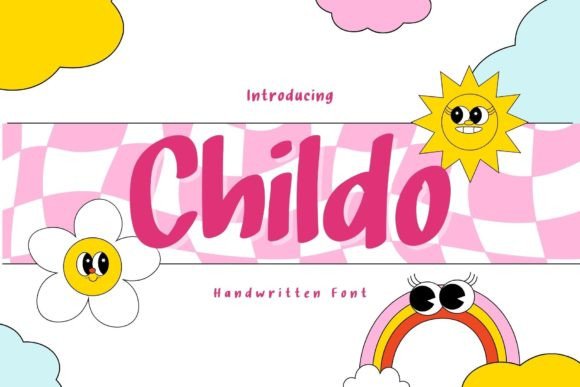
Brace yourself for the irresistible charm of Childo Font, the ultimate script font designed to capture hearts with its captivating strokes and playful personality. Step into the realm of creativity as you unlock a world of endless possibilities with Childo. Crafted with meticulous attention to detail, this enchanting font radiates authenticity and breathes life into your designs.
Experience the thrill of transforming ordinary words into extraordinary expressions. Blog posts, logos, branding, ads—there's no limit to what Childo can enhance with its irresistible charm. Watch as invitations, greeting cards, and planners come alive with Childo's whimsical touch, adding a layer of magic to every occasion.
Dive into the world of scrapbooking and indulge in the joy of capturing precious memories. Childo's allure will make your photo albums sparkle with personality, while decorations and accessories take on a new life of their own. Let Childo be your muse and unlock a treasure trove of creative wonders.
Embrace the beauty of Childo Font and let your imagination soar. Its delicate curves and flowing lines will captivate your audience, leaving them spellbound by your designs. Join the creative revolution and embrace the power of Childo, the script font that ignites the soul and transforms the ordinary into the extraordinary.